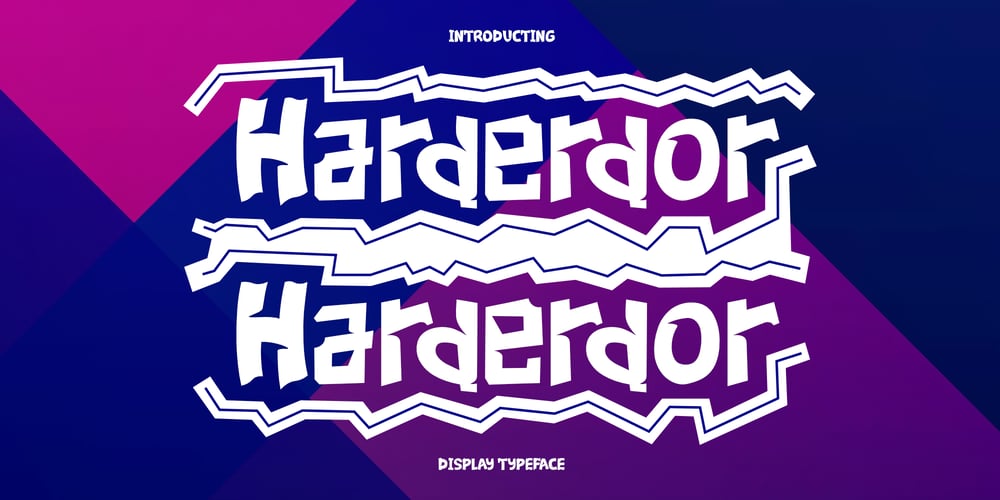
Harderdor Font Family was designed by Eka Rifqi Setiawan and published by Erifqizefont. Harderdor contains 1 styles and family package options. Harderdor is a font that exudes a fun and cheerful vibe. With a playful, display, and cartoon theme, Harderdor presents itself as a sans serif font that is funny, comic, and bold. Its strong and striking characters make it perfect for grabbing attention in various designs. Ideal for creative projects like posters, comics, and anything that needs a touch of humor and joy. Harderdor invites you to play with imagination and bring happiness to every word written.